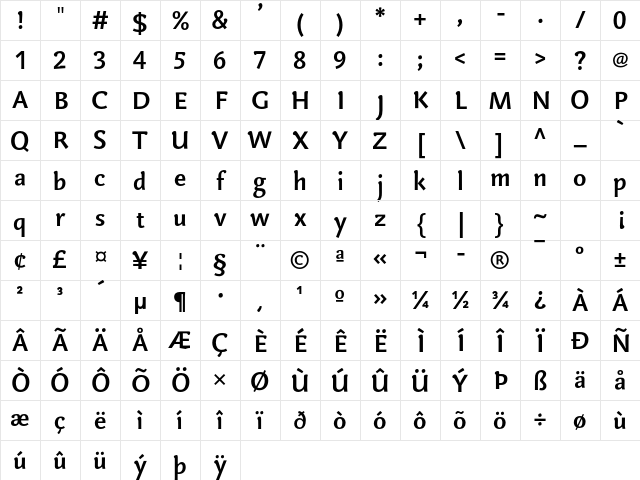
Veronika LT Std Bold
Design Context for Veronika LT Std
Veronika LT Std is a composed and adaptable typeface that performs quietly and consistently across a wide range of design contexts. Its bold stroke weight gives it real presence on the page.
Pro Tip: Use Veronika LT Std in both headline and body roles to test its range before committing to a single application.